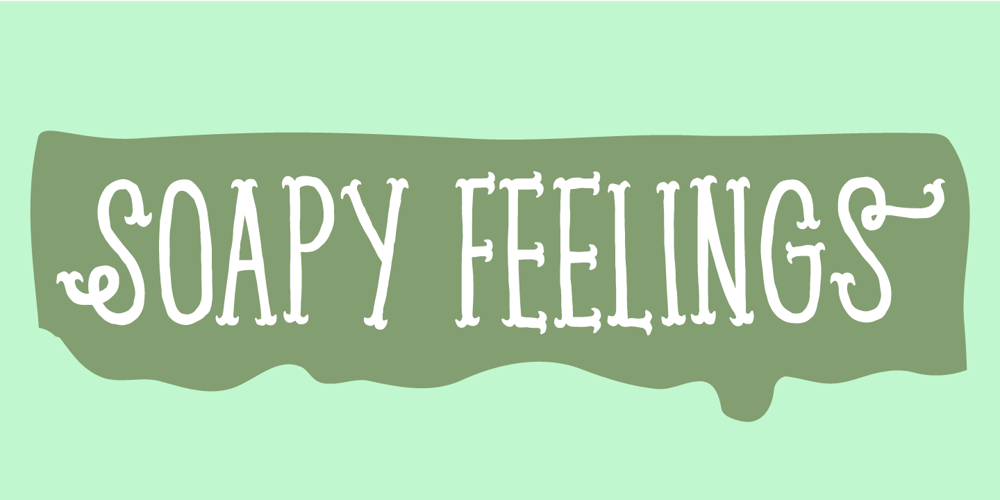
Soapy Feelings
Soapy Feelings font
Soapy Feelings Font Family was designed by Jakob Fischer and published by PizzaDude.dk. Soapy Feelings contains 2 styles and family package options. Soapy Feelings is my slightly rough-edged handmade fantasy (or perhaps even fairytale) font. I’ve added several swashes, which can be used for both starting and endings of words. I’ve also added 4 slightly different versions of each letter (and they automatically cycle as you type!) and lastly, of course Soapy Feelings has multilingual support! Caps Only Fonts